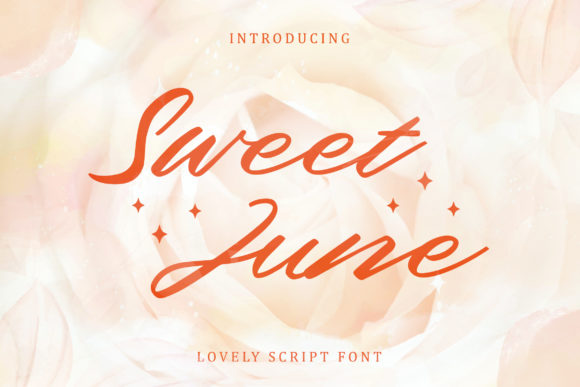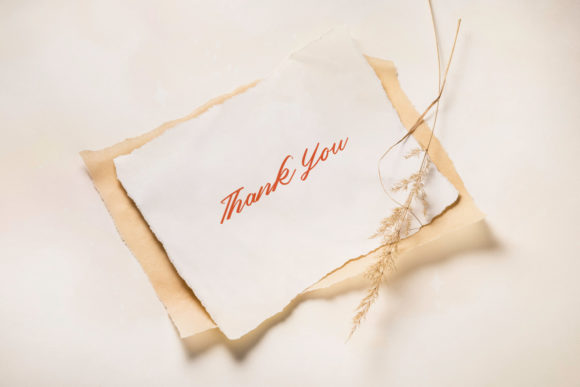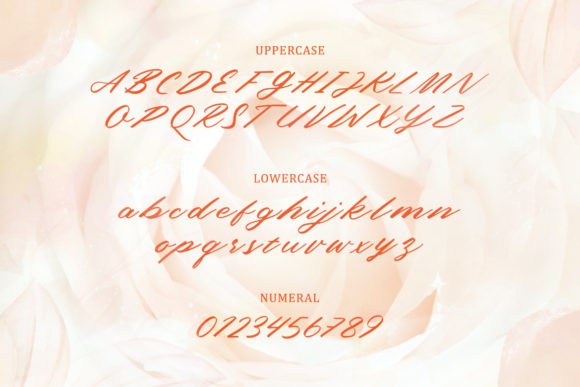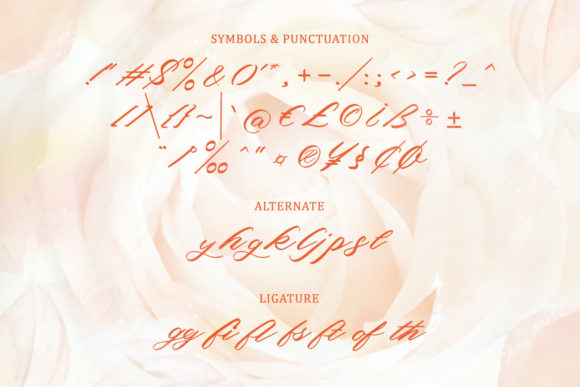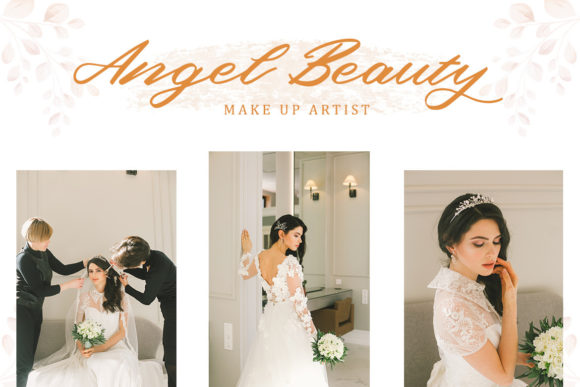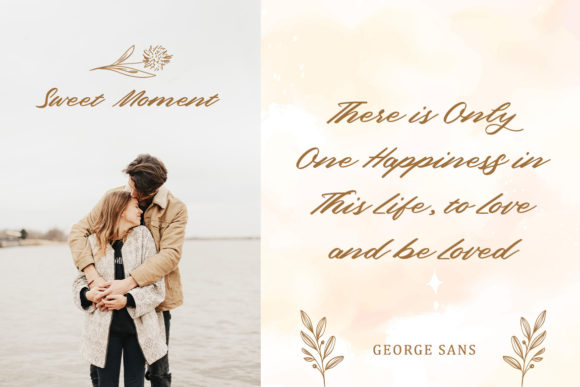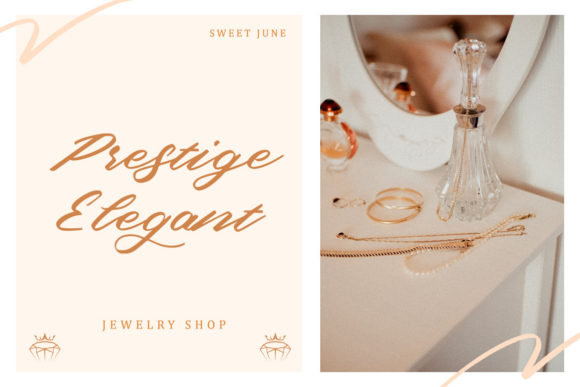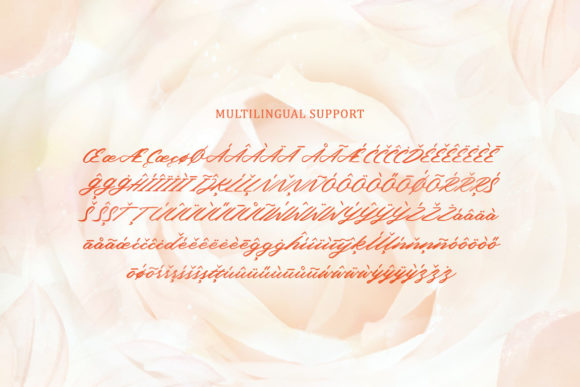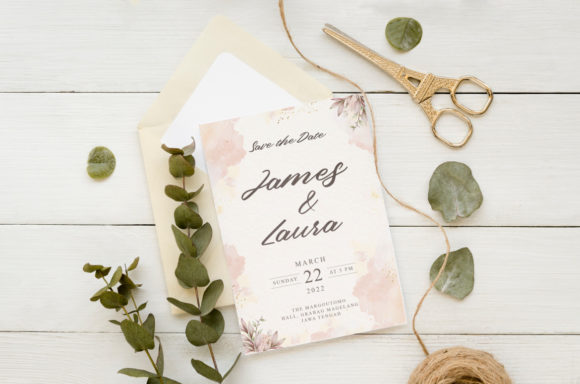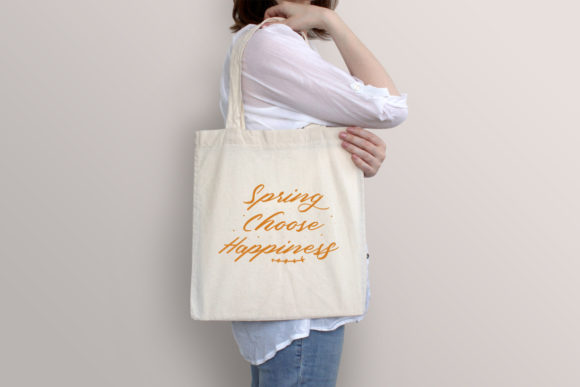
Sweet June Font
About Sweet June Font
Sweet June is a lovely and chic script font. It has a natural writing style with great readability that is perfect for adding a natural touch to your luxurious designs!